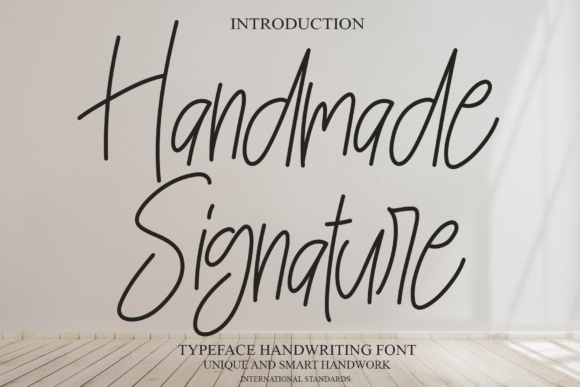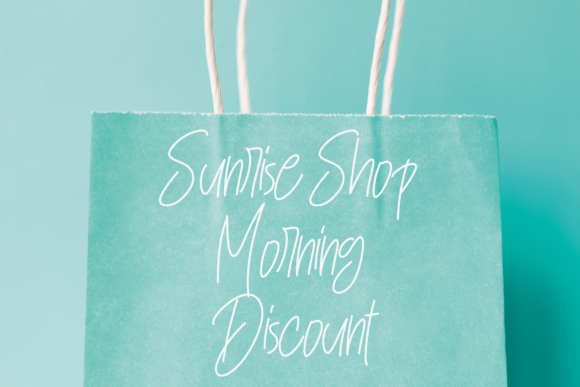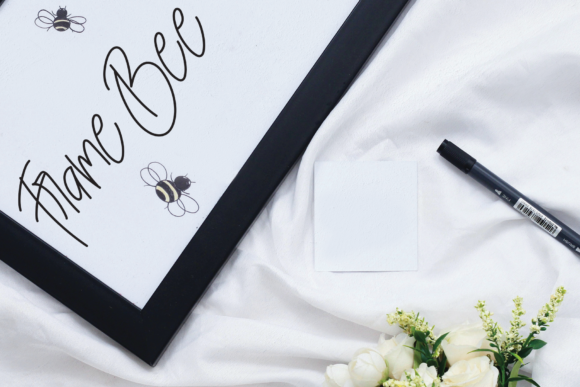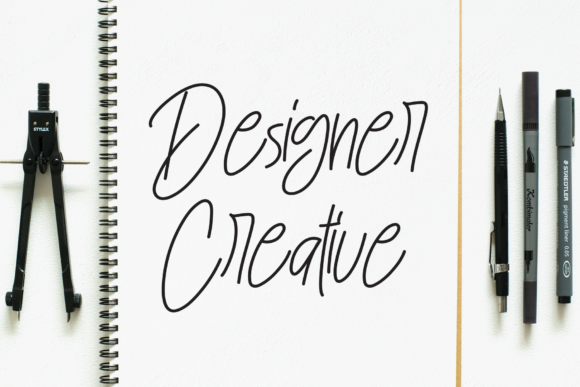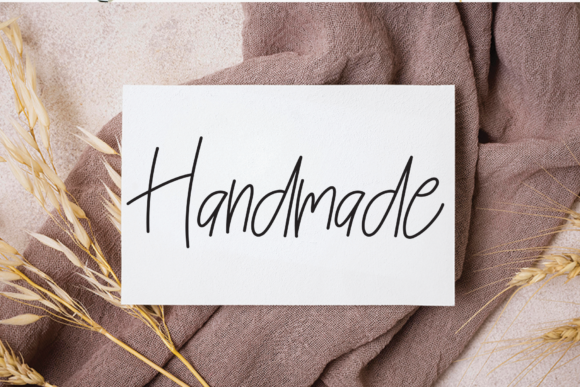
Handmade Signature Font
About Handmade Signature Font
Handmade Signature is a simple, quirky and adaptable handwritten font. Its informal style and casual vibe will make this font a go-to choice for each of the creations that require a relaxed touch.